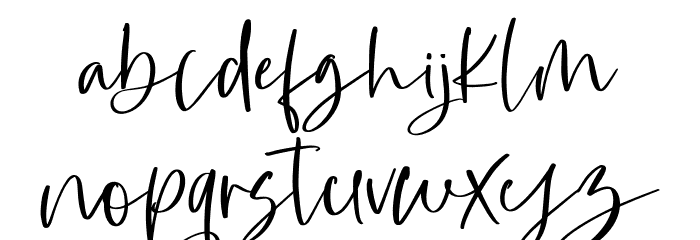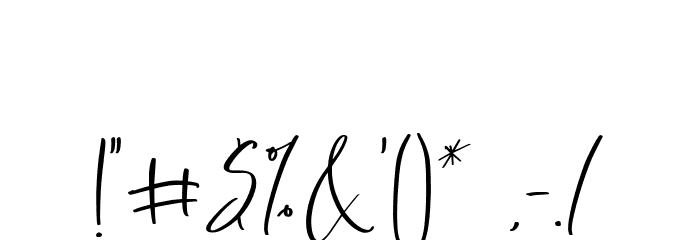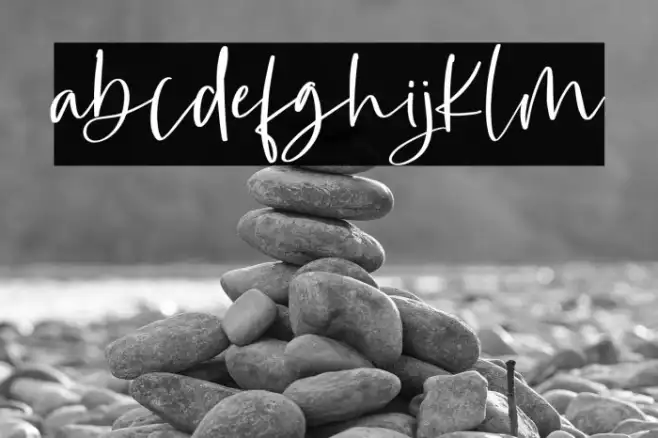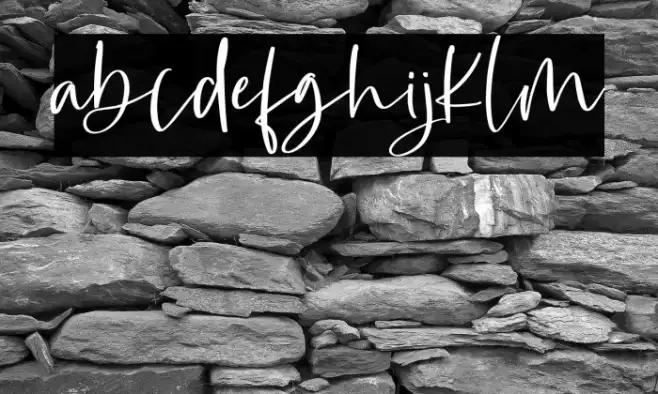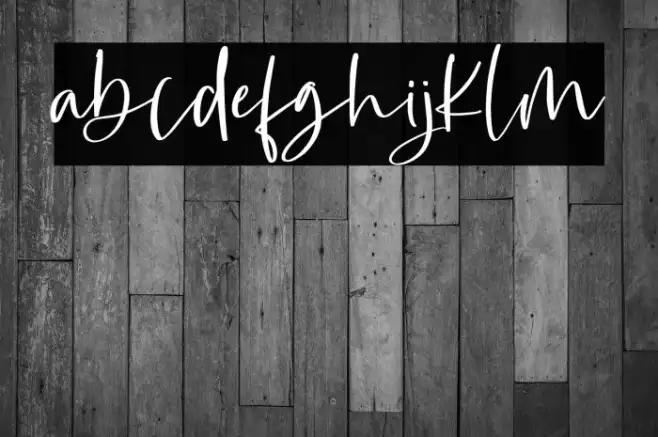
Makeit Font
This font exudes a casual, handwritten charm with its flowing, cursive style. The letters are connected in a fluid manner, giving it a natural and personal touch. The strokes vary in thickness, adding a dynamic and lively feel to the text. The lowercase letters are particularly expressive, with loops and curves that enhance its handwritten appeal. The uppercase letters maintain a consistent height, complementing the lowercase characters well. Special characters are integrated seamlessly, maintaining the overall aesthetic. This font is perfect for projects that require a personal, friendly, and approachable look.
A casual, handwritten cursive font with dynamic strokes.
- Proposed Projects: Ideal for greeting cards, personal invitations, social media graphics, and branding projects that seek a personal touch.
- Overall Style: Casual, Personal
- Use Case: Logos, Invitations, Social Media Graphics